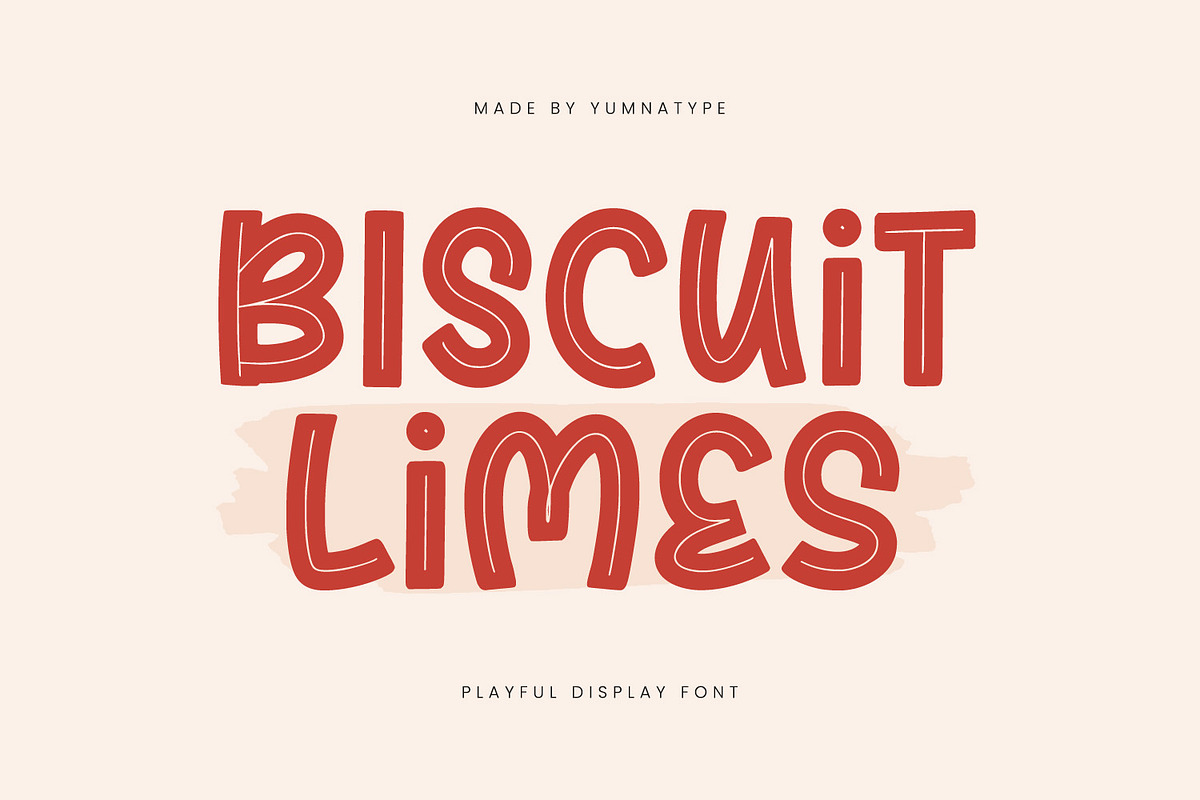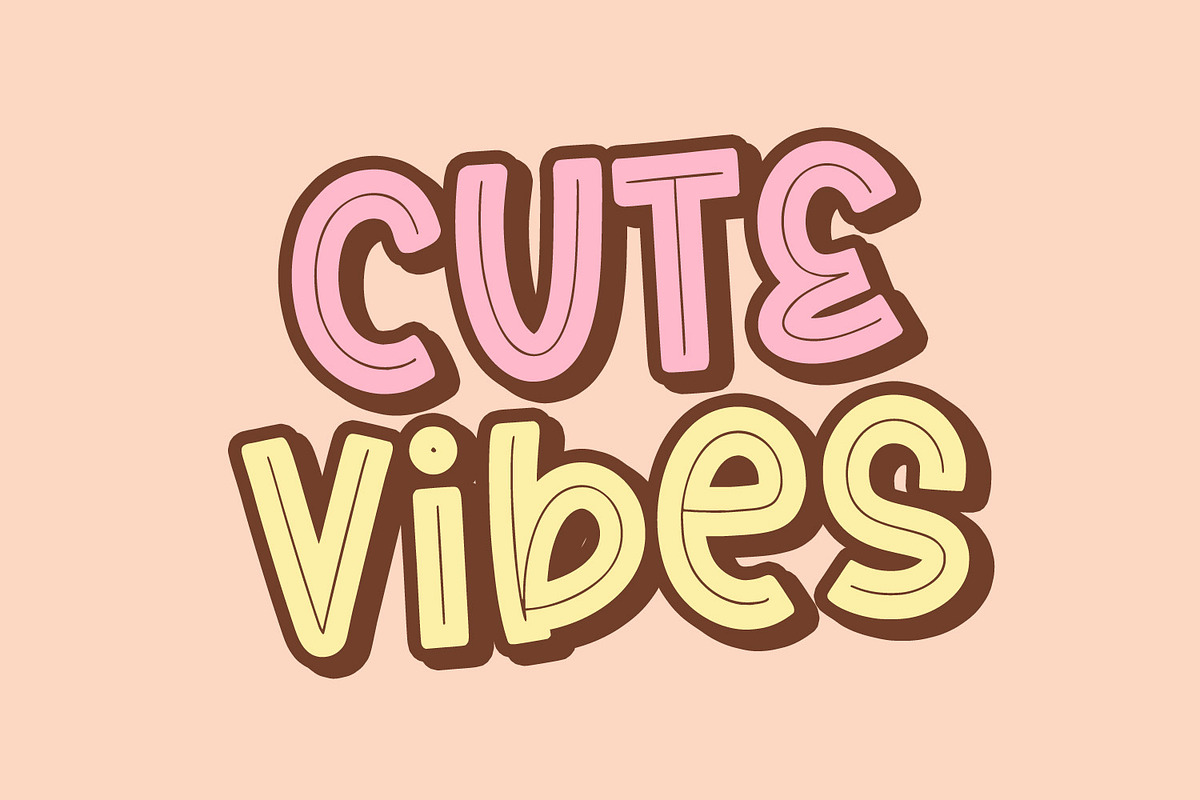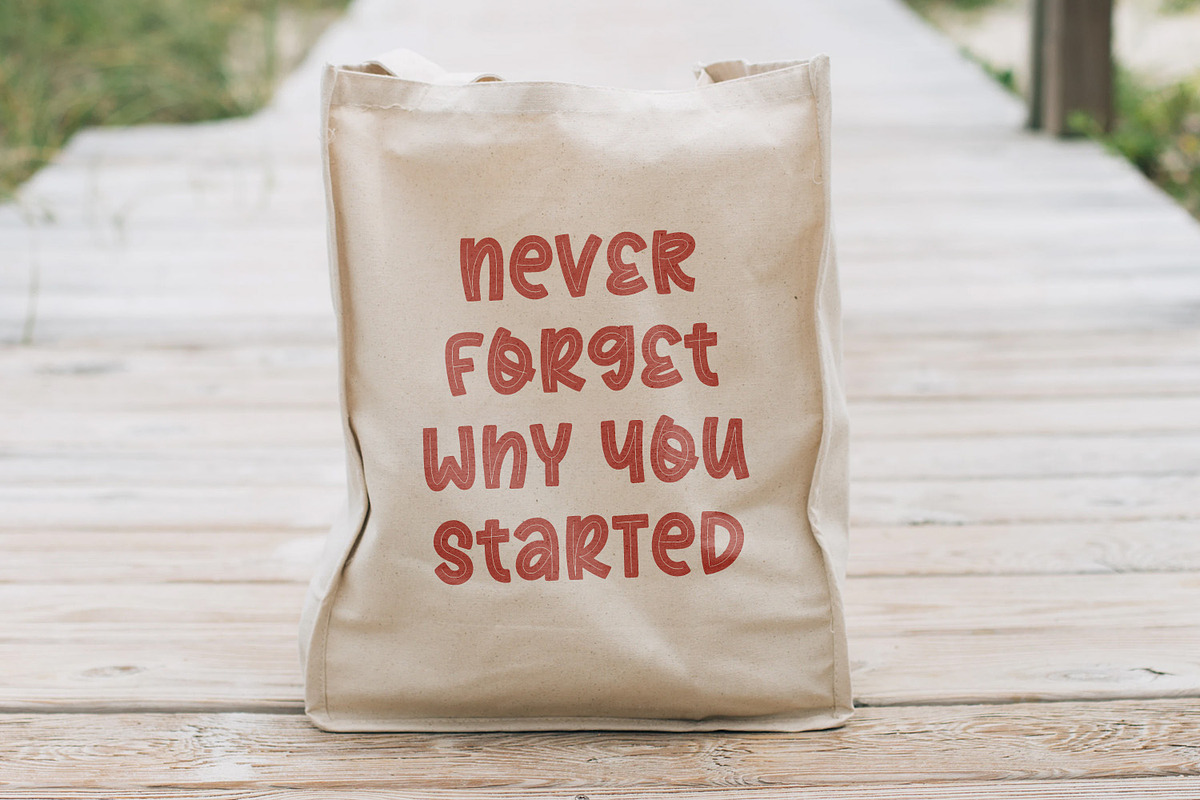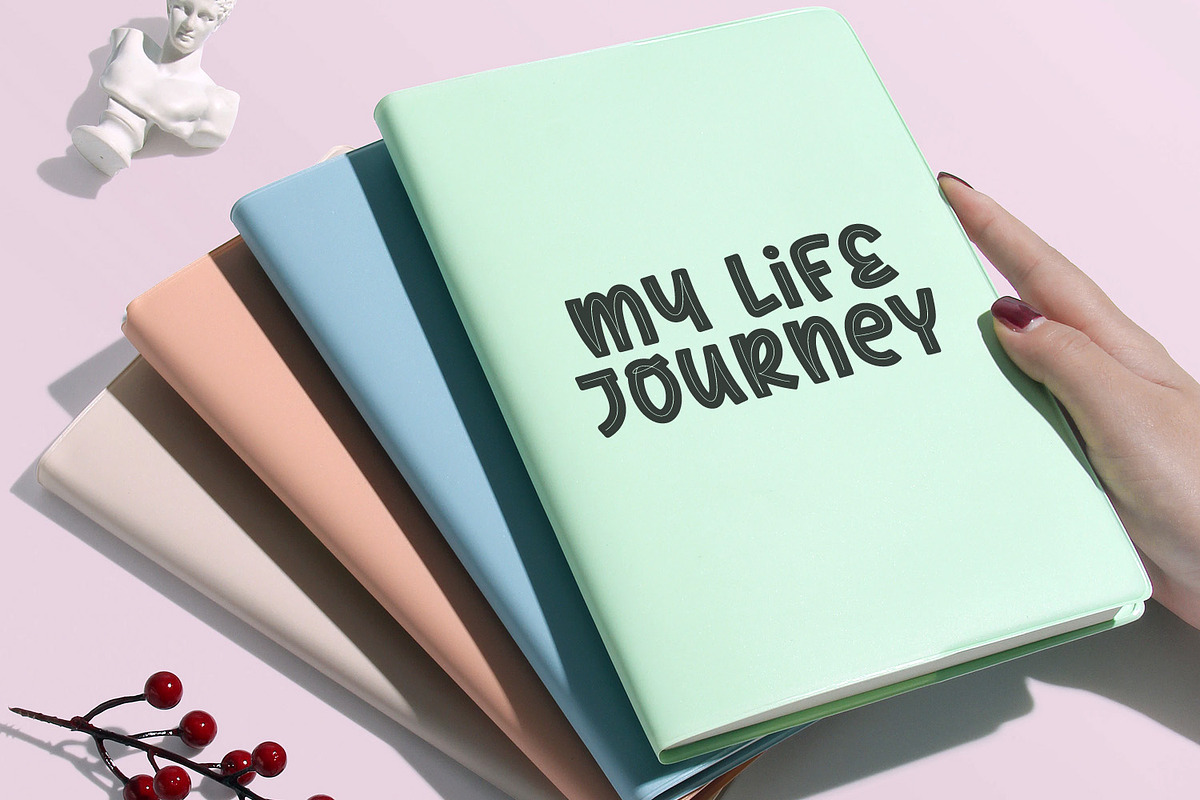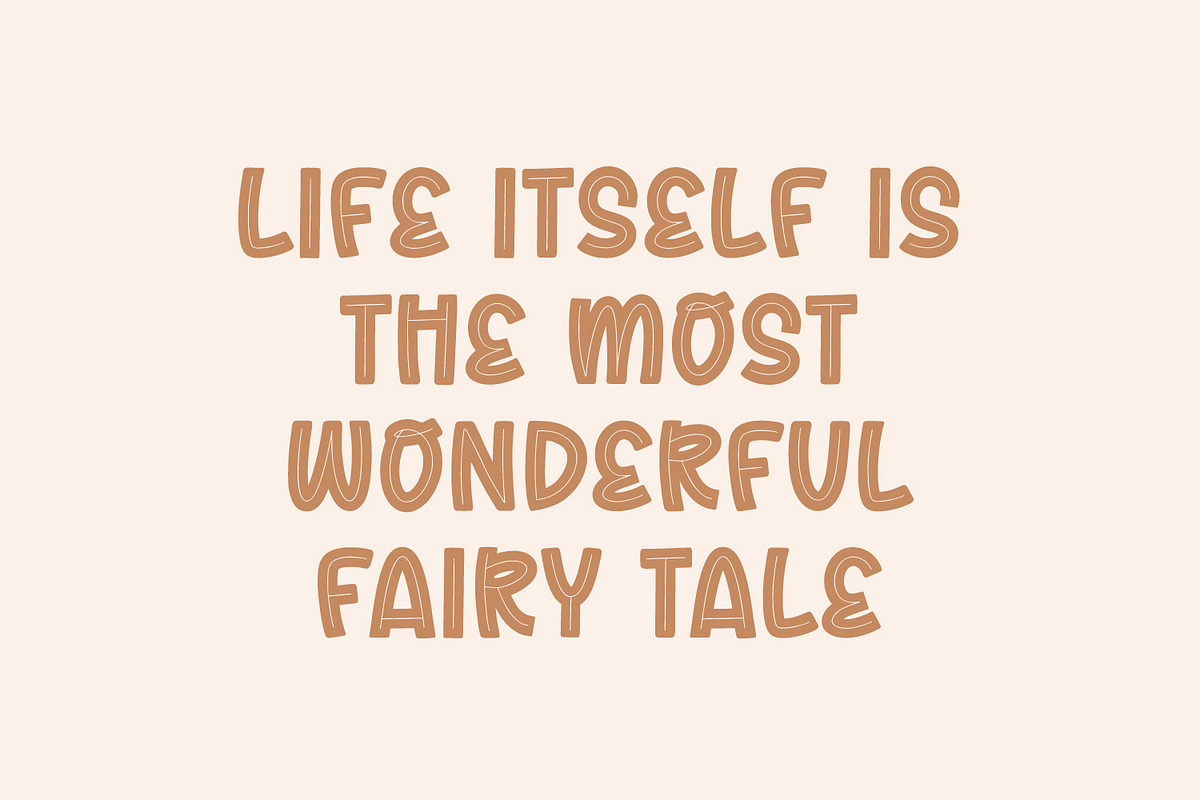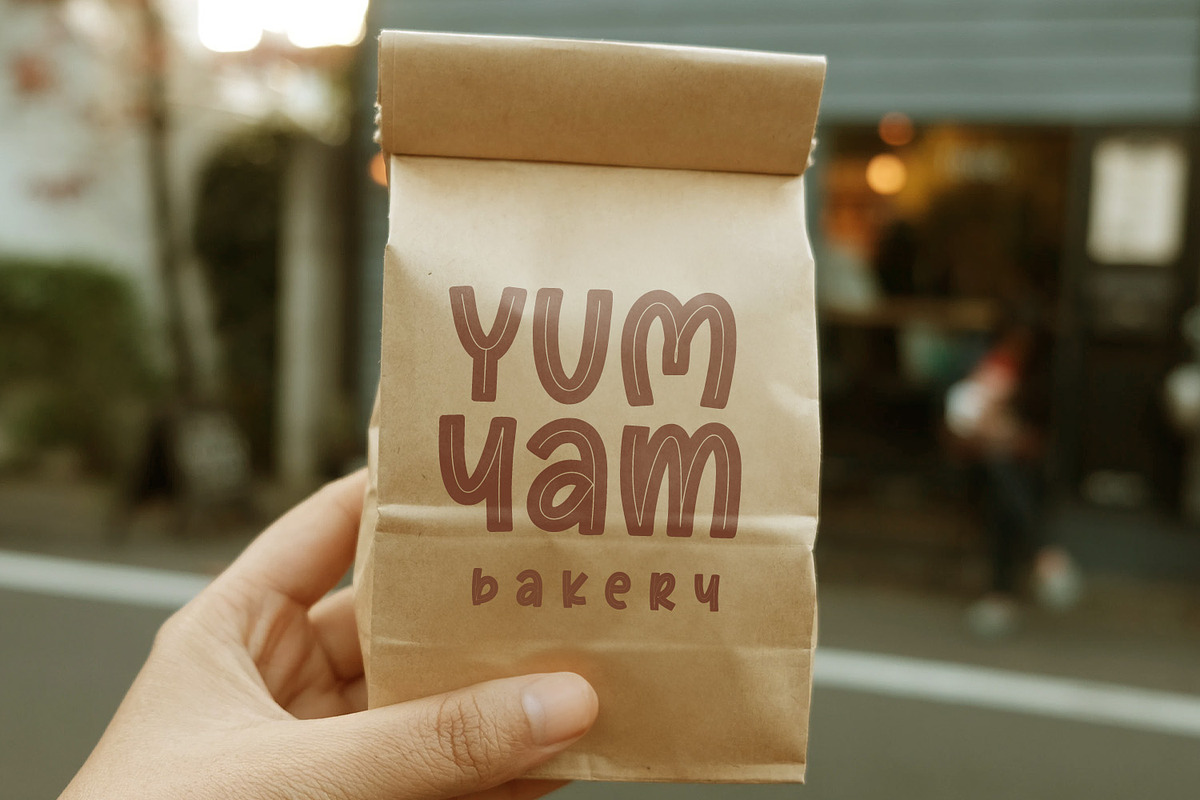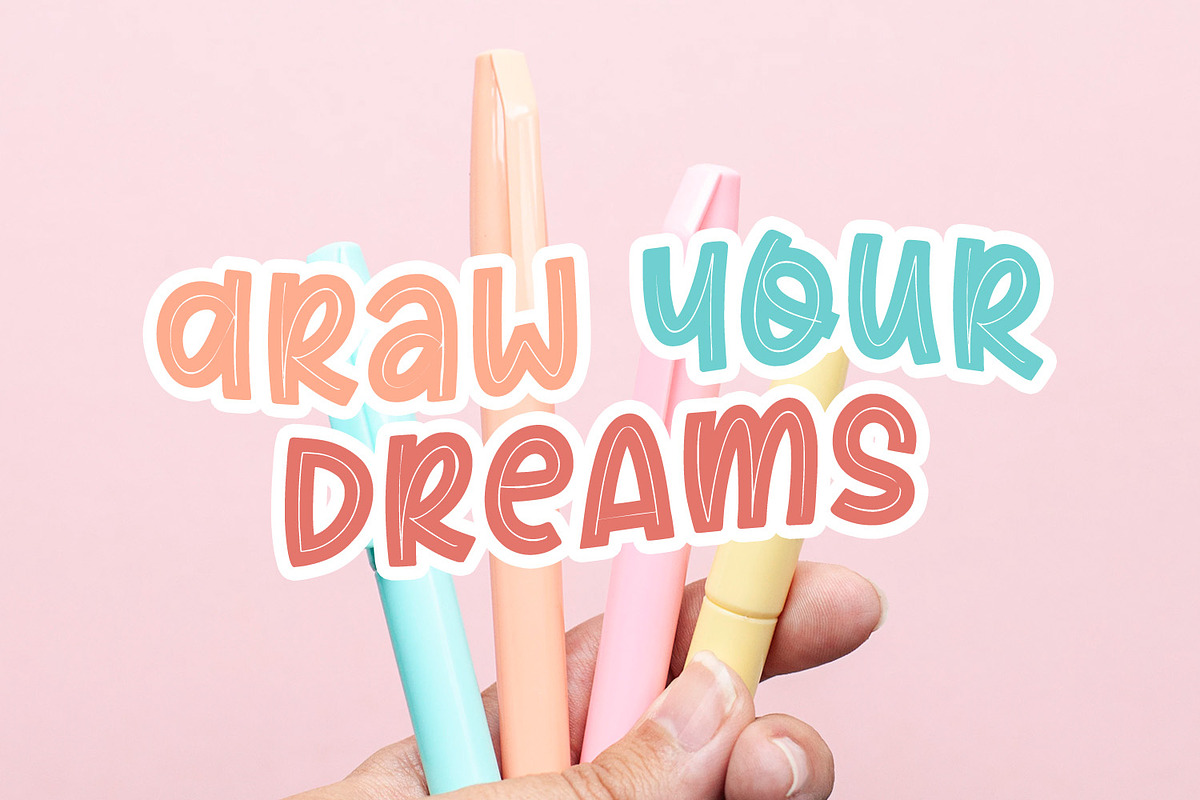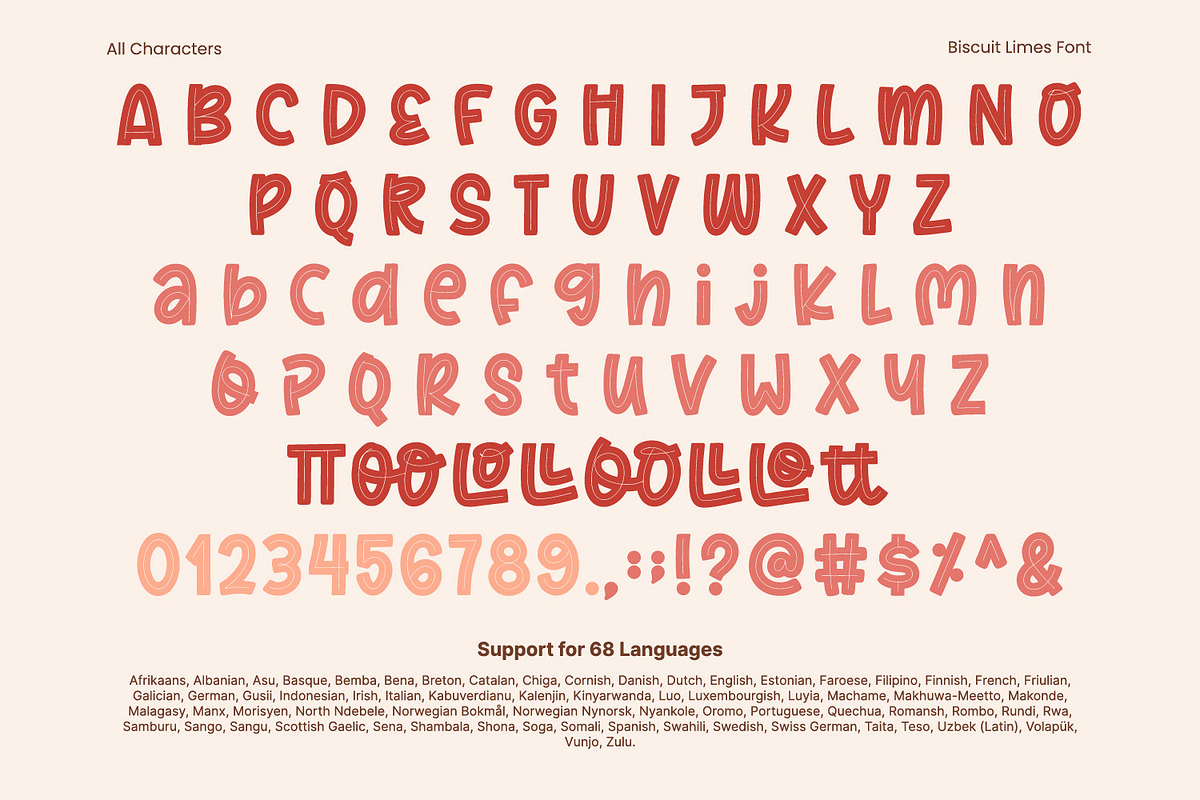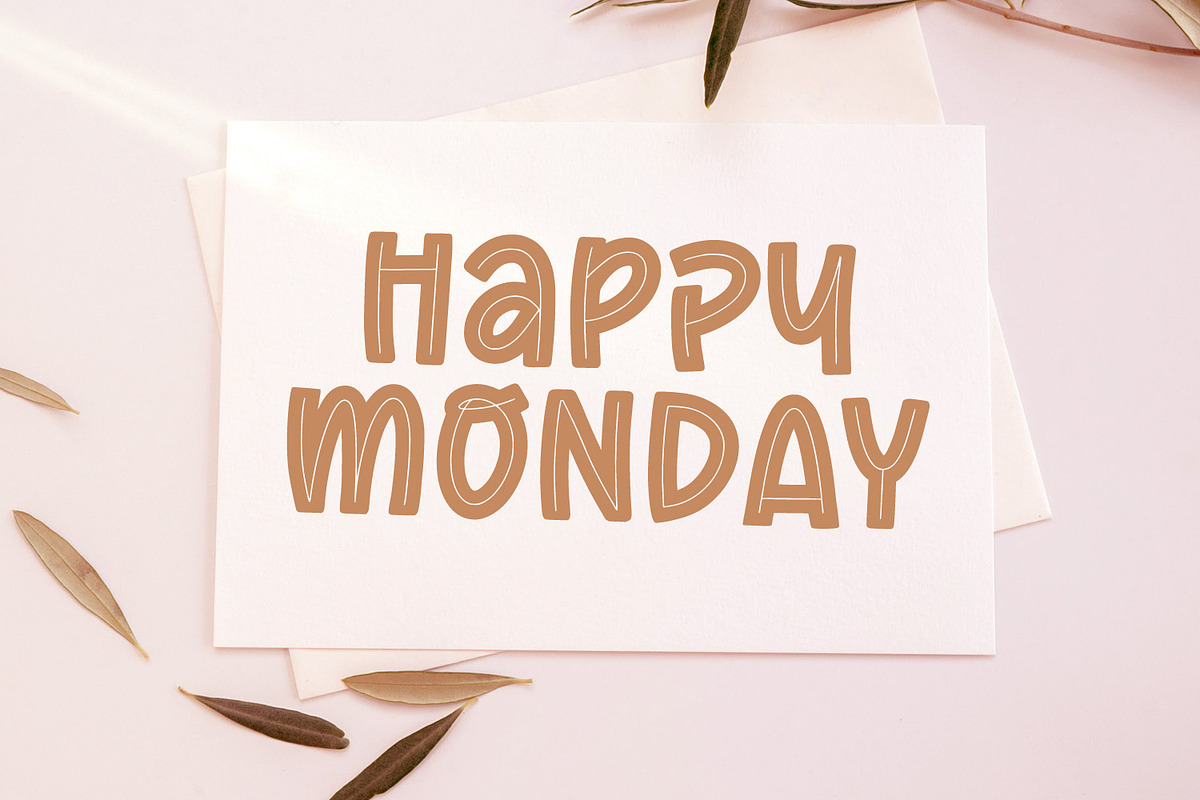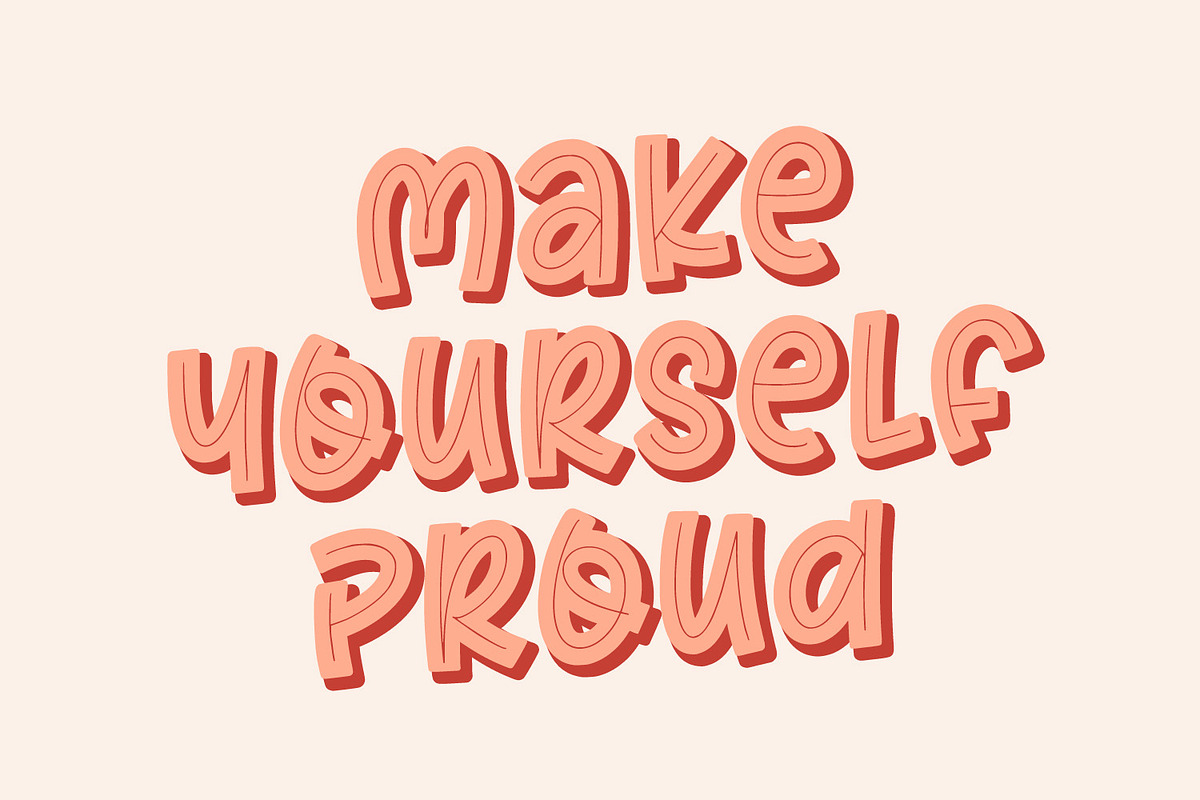
Biscuit Limes
Biscuit Limes is a delightful display font that adds a playful twist to any design project with its charming style and whimsical appeal. Crafted with a fairly thick weight and slightly unequal proportions, this font exudes personality and character. With its playful style and quirky details, Biscuit Limes injects a sense of joy and spontaneity into every composition.
The slightly unequal proportions of the letters add to its playful charm, creating a dynamic rhythm that dances across the page. Despite its whimsical appearance, Biscuit Limes maintains a sense of versatility and adaptability. In addition, enjoy the features here.
Biscuit Limes fits in headlines, logos, posters, flyers, branding materials, greeting cards, print media, editorial layouts, and many more designs. Find out more ways to use this font by taking a look at the font preview.